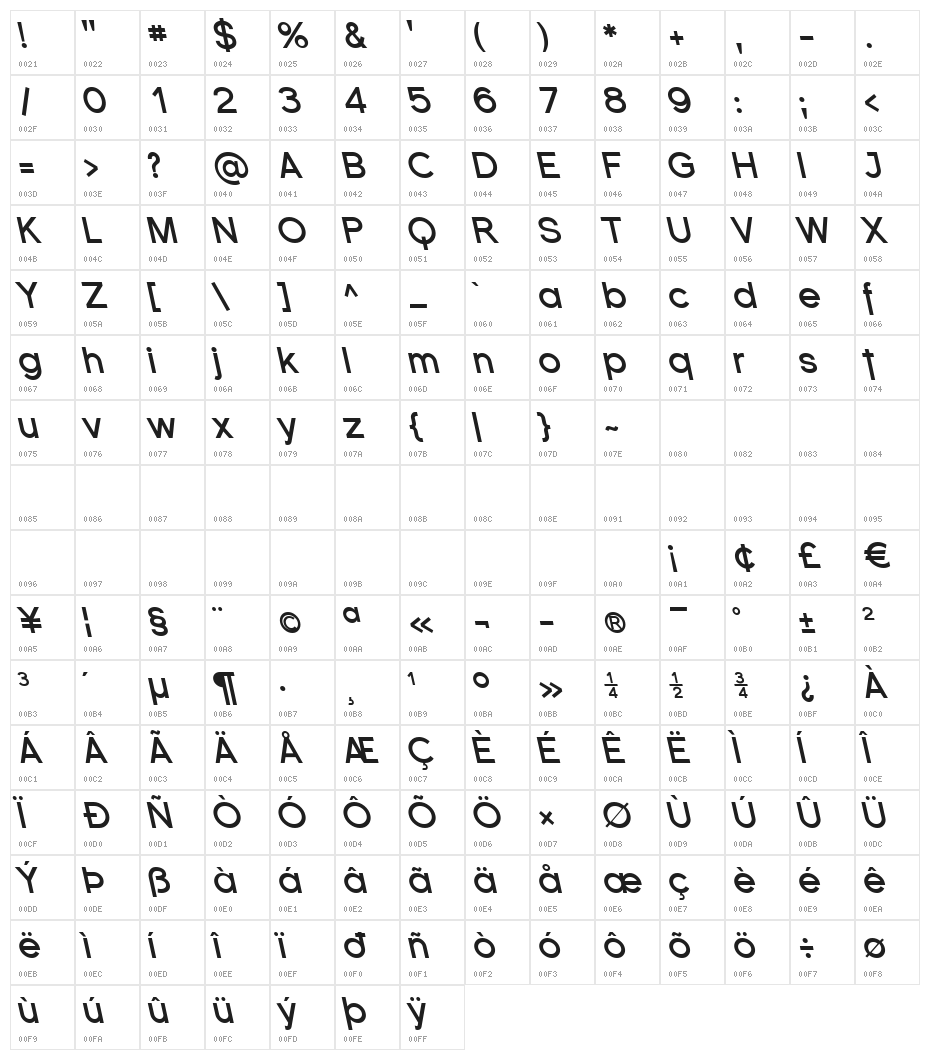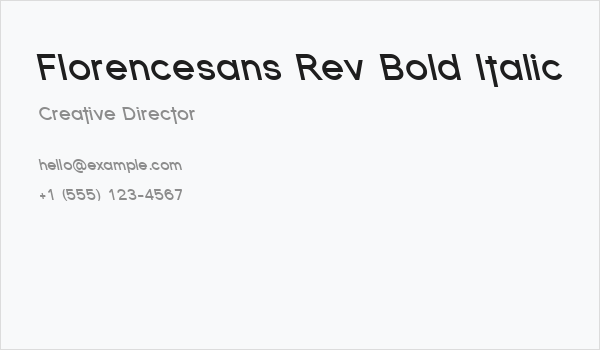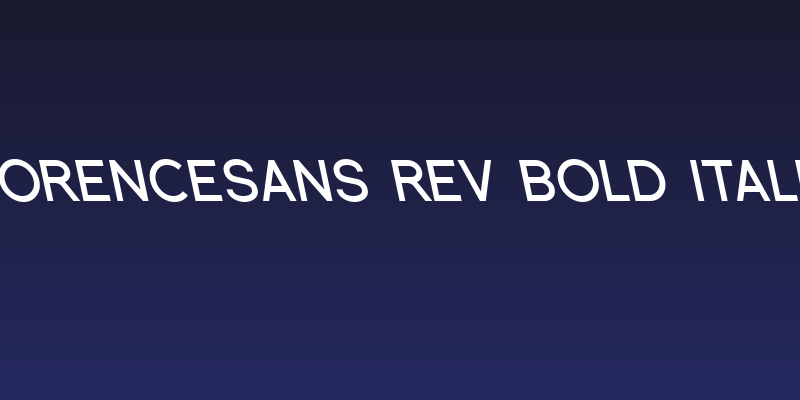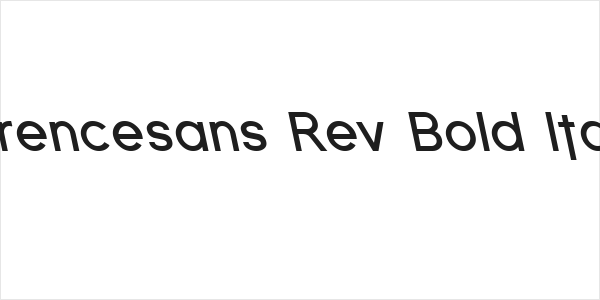
Florencesans Rev Bold Italic Font
Florencesans Rev Bold Italic Description
This font features a bold and italicized style with a modern sans-serif design. The characters are clean and geometric, offering a contemporary look that is both professional and approachable. The uppercase and lowercase letters maintain a consistent weight, providing a uniform appearance across the text. The numerals are clear and easy to read, making them suitable for various applications. Special characters are well-defined, enhancing the font's versatility. The overall design is sleek and minimalistic, making it ideal for modern branding and design projects.
| Use Case | Headlines, Logos, Digital content |
| Proposed Projects | Ideal for branding, advertising, digital content, and modern web design. |